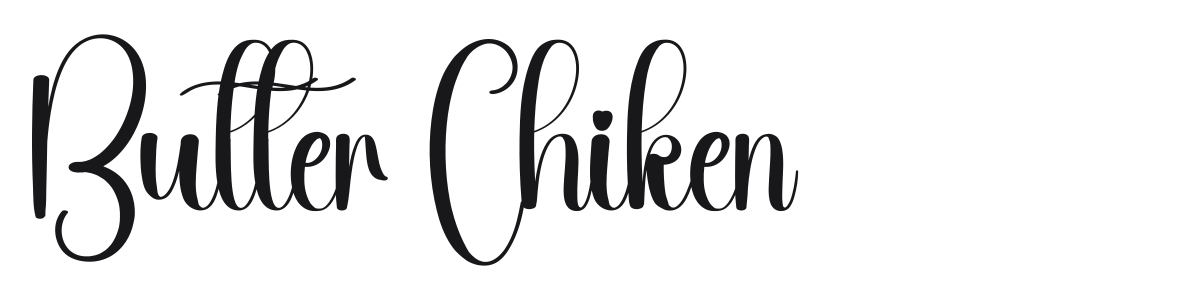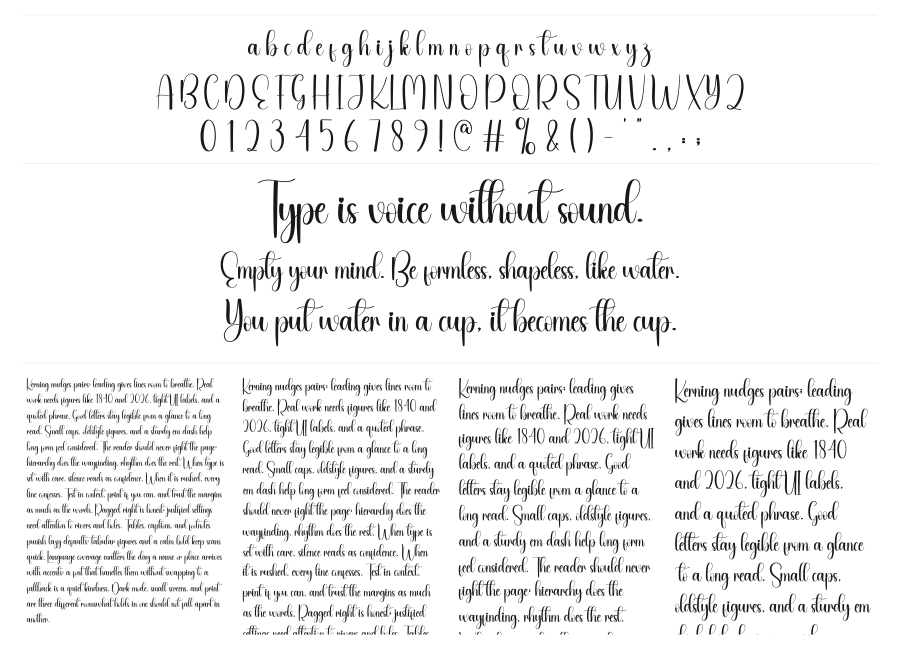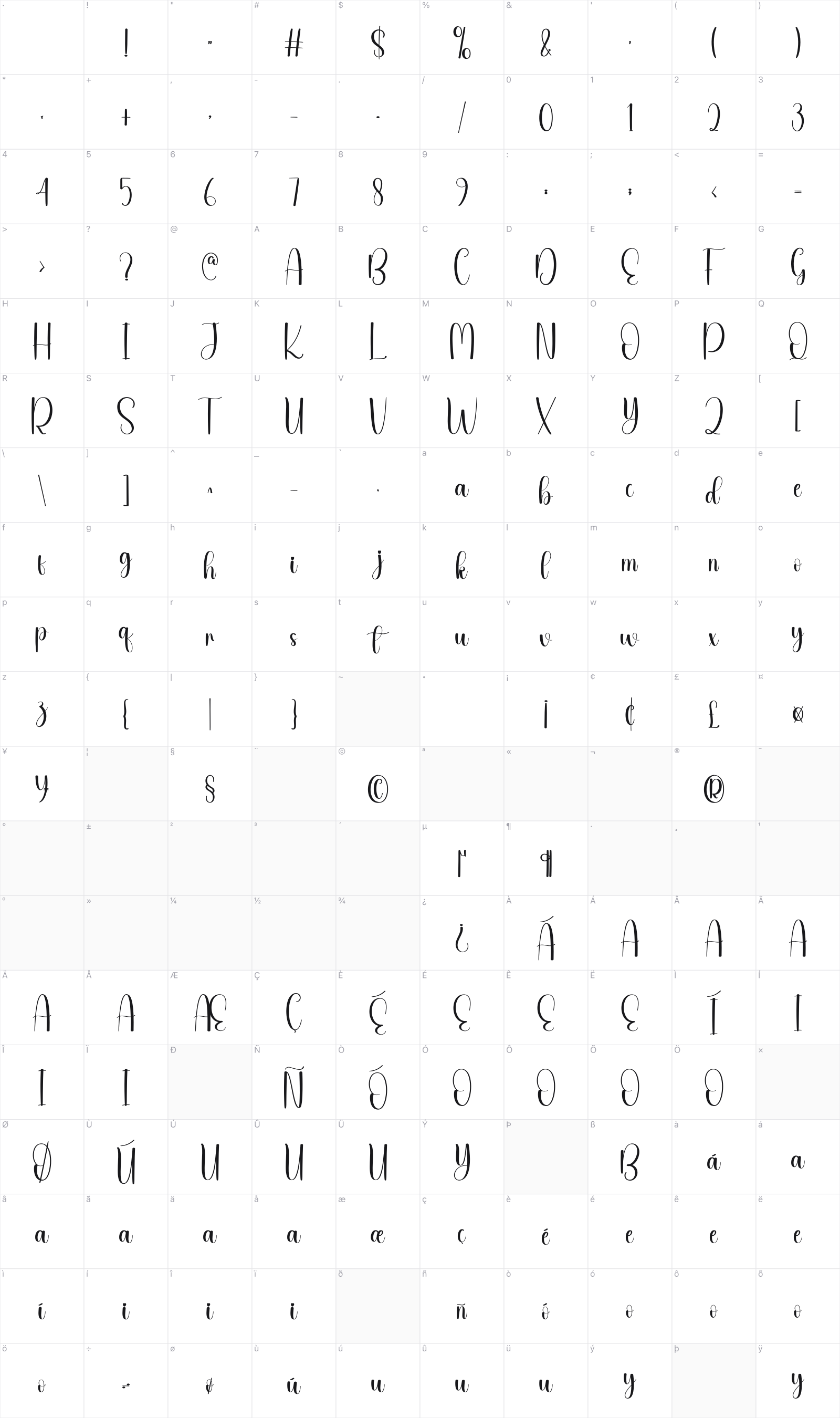
Butter Chiken
Butter Chiken is a bouncy casual script with flowing connected strokes and a lively, irregular baseline. The high contrast between thick downstrokes and hairline upstrokes gives it a genuine hand-penned feel without feeling stiff or formal. It brings warmth and charm to wedding stationery, greeting cards, branding, and any project that needs a personal touch.